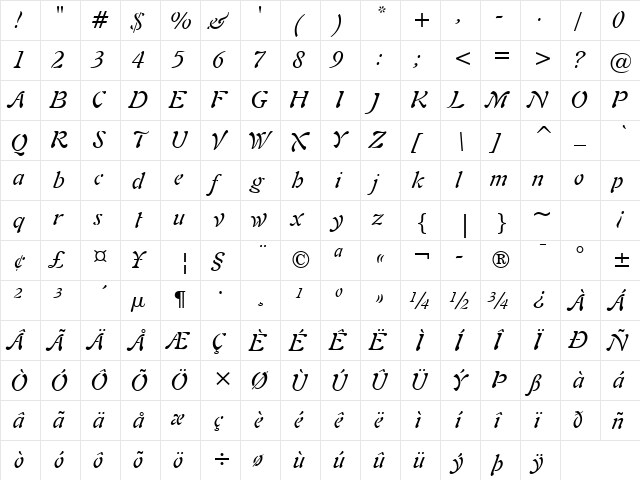
Freefrm721 BT Italic
Design Context for Freefrm721 BT Typeface
Freefrm721 BT offers clean, dependable letterforms without strong stylistic allegiance, making it a practical choice for designers who need flexibility. The slanted form adds forward momentum and visual energy.
Pro Tip: Use Freefrm721 BT for emphasis, pull quotes, and subheadings where its slanted energy can add rhythm to the layout.